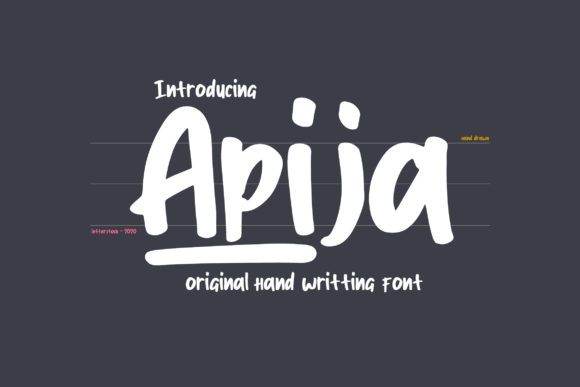
The Ultimate Design Game-Changer: Apija Font
I’ll never forget the moment I stumbled upon the Apija font. I was working on a wedding invitation project for a client, and I was struggling to find the perfect font that would capture the playful yet elegant vibe of the couple’s special day. That’s when I discovered Apija, and it instantly became my go-to font for a wide range of design projects.
A Personal Review of Apija Font
As a designer, I’m always on the lookout for fonts that can elevate my projects to the next level. Apija font has been a game-changer for me, and here’s what I love about it:
• ✨ Fun and cute display font with an incredible friendly feel
• ✅ Perfect for branding, headings, wedding designs, invitations, signatures, logos, labels, and more
• 💕 Highly versatile and can be used for both digital and print projects
• 👍 Easy to read and understand, even at smaller font sizes
While Apija font is amazing, it’s not perfect. Here are some small quirks or limitations to keep in mind:
• ⚠️ Limited use for body text, as it’s primarily designed for display purposes
• 🤔 May not work well for very formal or traditional designs
One of the best things about Apija font is its advanced OpenType features and glyphs. Here are some tips on how to make the most of these features:
• 💡 Use ligatures to create beautiful connections between letters.
• 🎨 Experiment with stylistic alternates to add more personality to your design.
• 🔍 Explore the glyph panel to discover unique characters and symbols.
The Story Behind Apija Font
Apija font was designed with the intention of creating a fun and friendly display font that would bring joy to designers and their clients. The designer, inspired by the playful and whimsical world of children’s books, aimed to create a font that would be perfect for a wide range of design projects.
Font Name Apija Font
Author Gumacreative
What is Apija font best used for? Apija font is best used for display purposes, such as headings, titles, and short text passages. It’s perfect for branding, wedding designs, invitations, signatures, logos, labels, and more.
Is Apija font suitable for body text? No, Apija font is not recommended for body text. It’s primarily designed for display purposes and may not be easy to read at smaller font sizes.